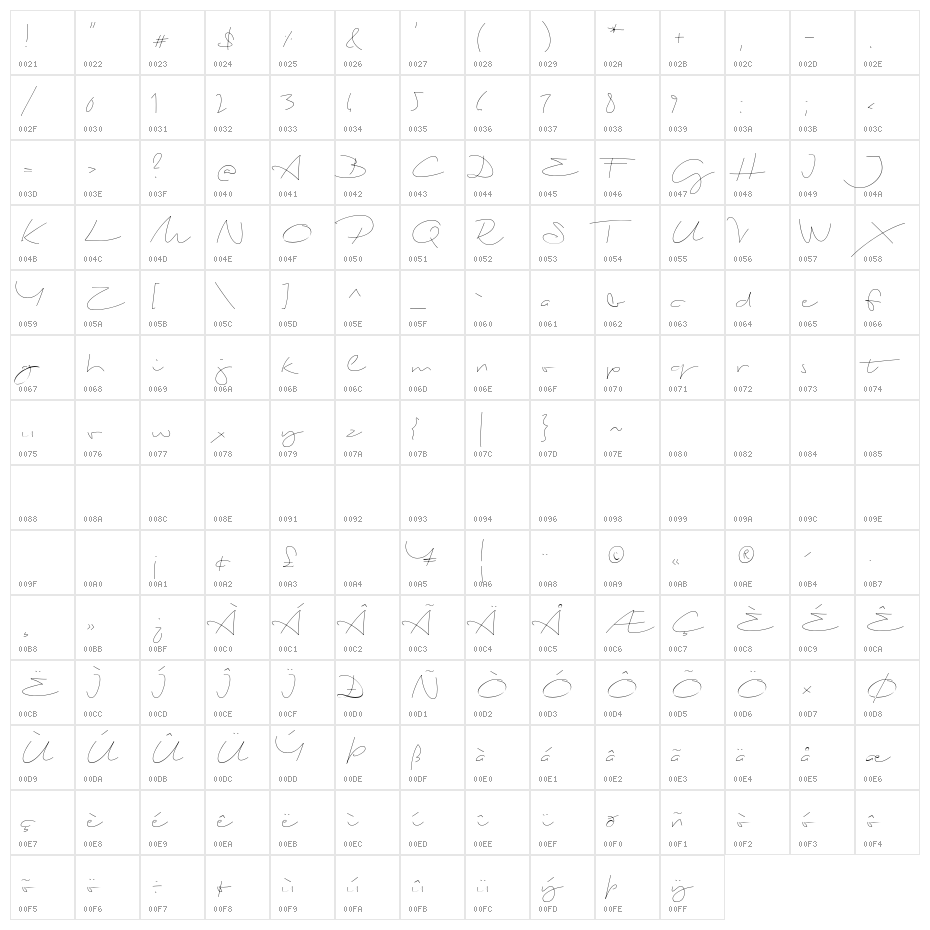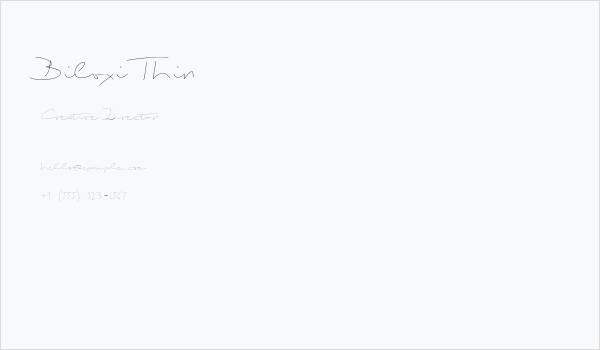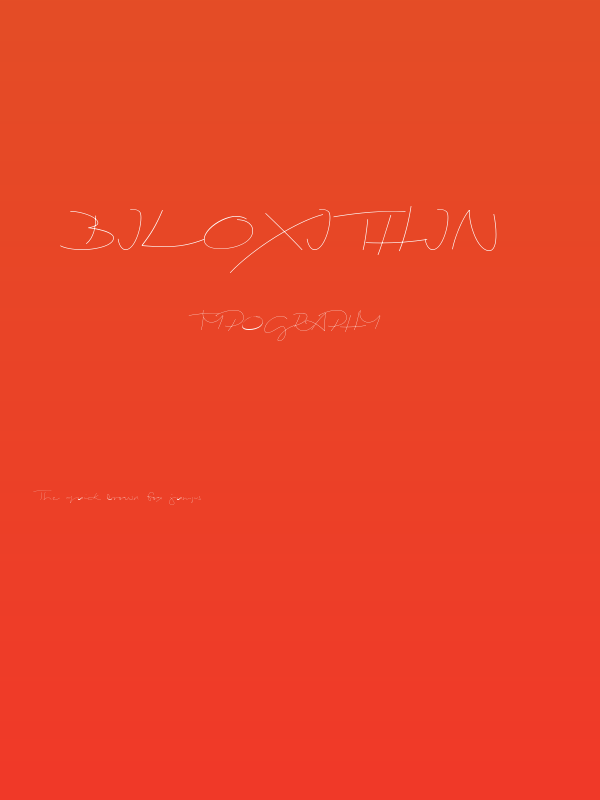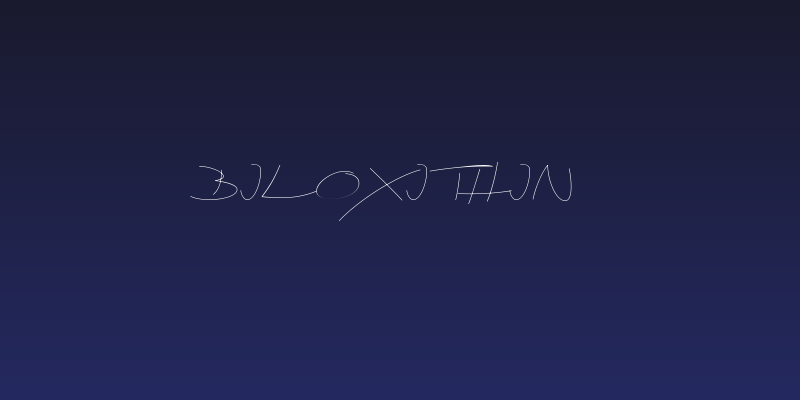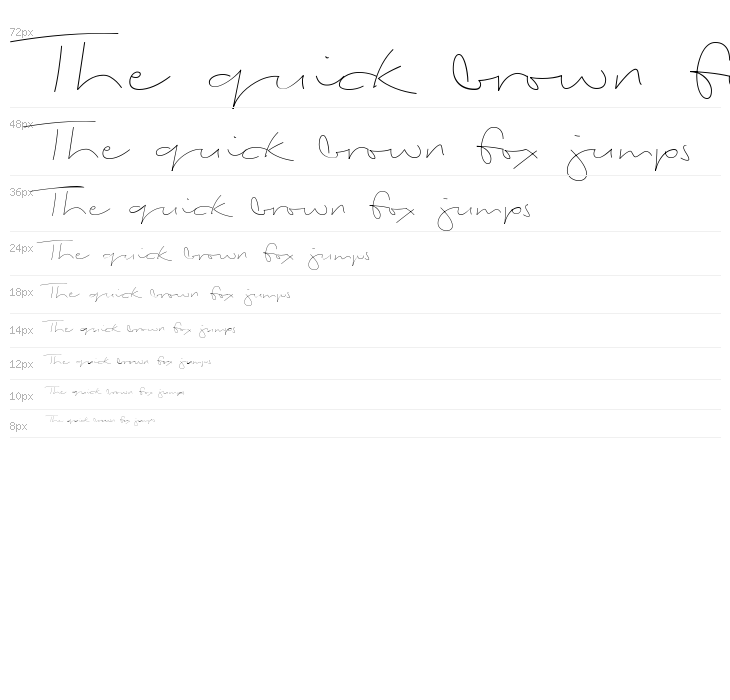
Biloxi Thin Font
Biloxi Thin Description
This font features a delicate and elegant handwritten style, characterized by thin, flowing strokes that mimic the fluidity of cursive handwriting. The uppercase letters are slightly more structured, while the lowercase letters exhibit a more relaxed, freeform appearance. The numerals maintain the same thin, graceful quality, ensuring consistency throughout. Special characters are seamlessly integrated, maintaining the overall aesthetic. This font's airy and light design makes it suitable for projects that require a personal, intimate touch.
Overall StyleElegant, Delicate
Use CaseLogos, Invitations, Personal Correspondence
Proposed ProjectsIdeal for wedding invitations, personal letters, greeting cards, and branding materials that require a touch of elegance and sophistication.